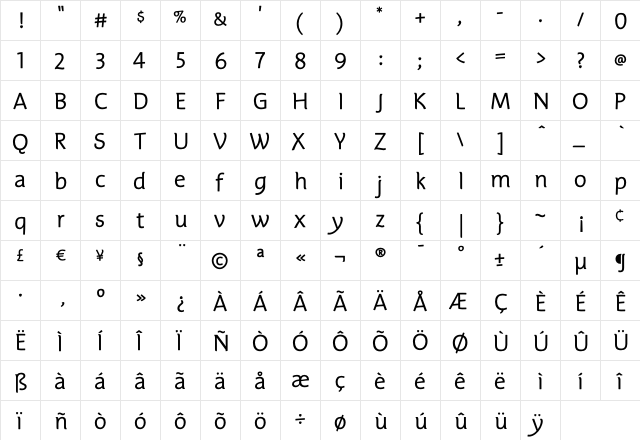
Edifice Classic Regular
| Foundry | Dimitri Castrique |
| Designer | Dimitri Castrique |
Design Context for Edifice Classic Typeface
Edifice Classic wears its vintage influences proudly, with letterforms that recall mid-century signage, classic packaging, and nostalgia-driven design.
Font Pairing: Combine Edifice Classic with a simple slab or neutral sans — period-accurate companions reinforce the vintage feel without competing for attention.
Pro Tip: Lean into Edifice Classic's period character by pairing it with aged paper textures, muted colour palettes, and vintage illustration styles.